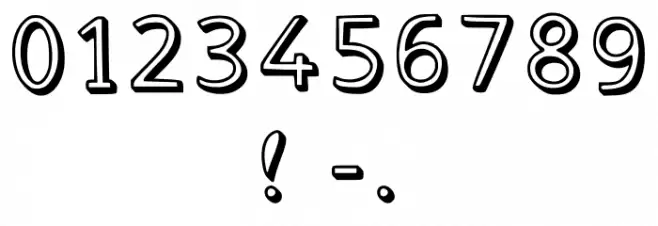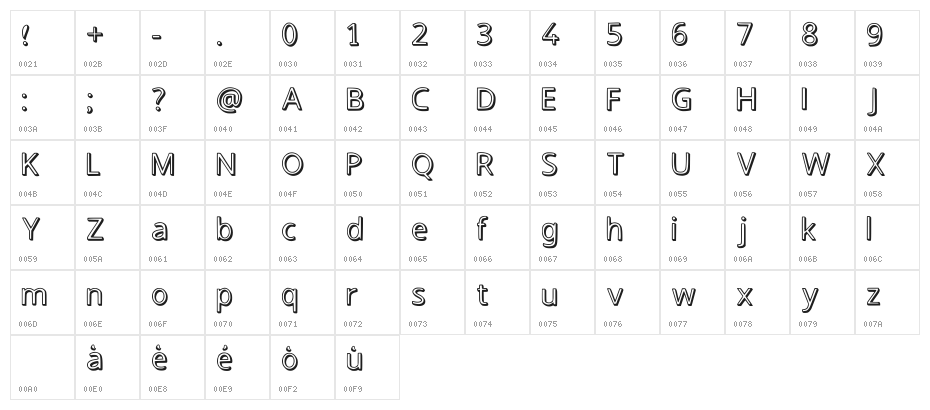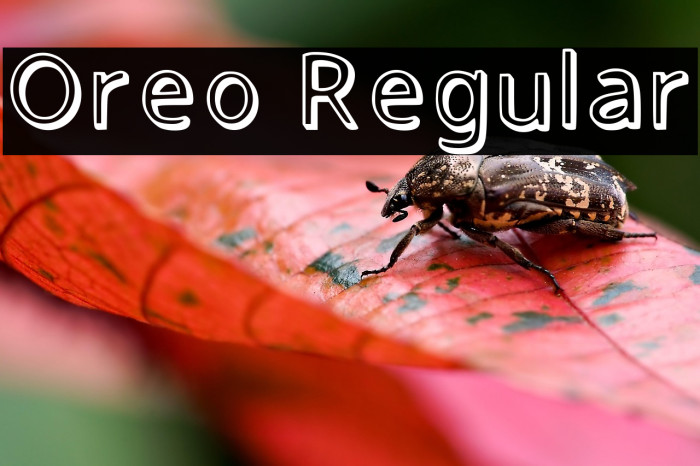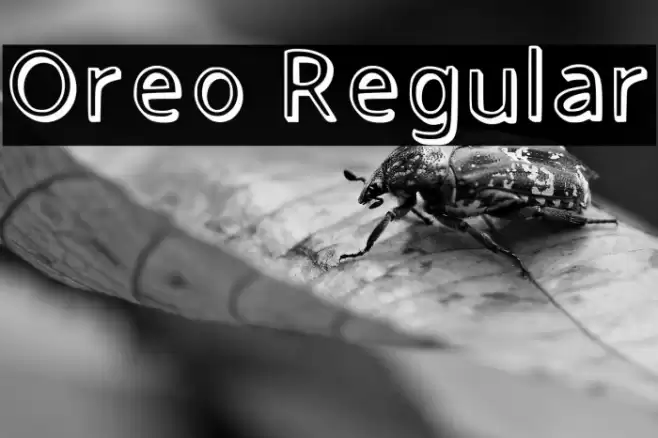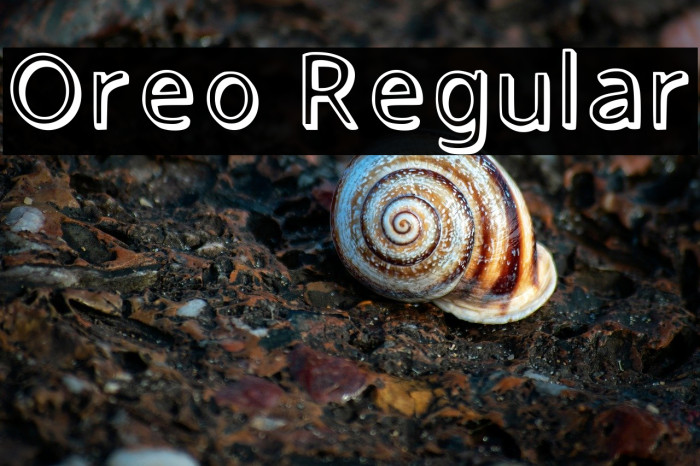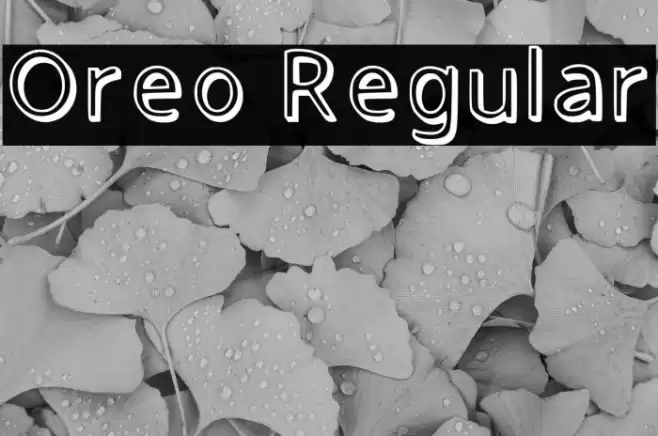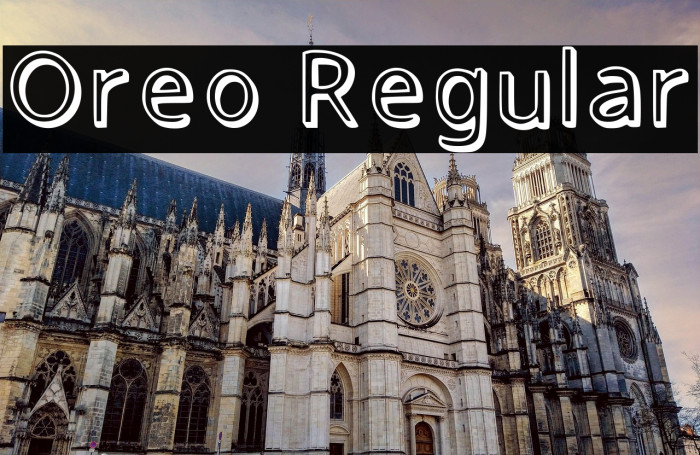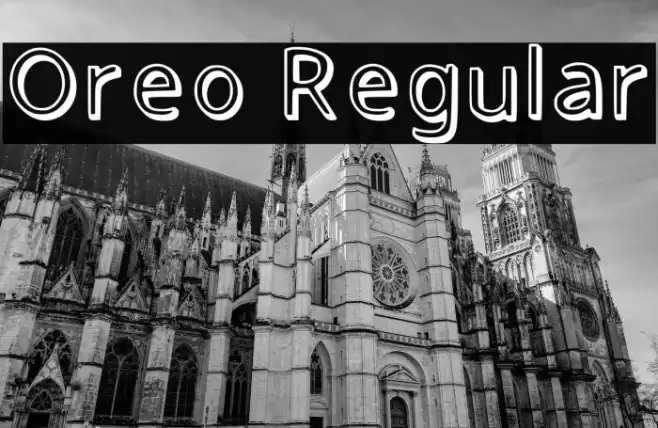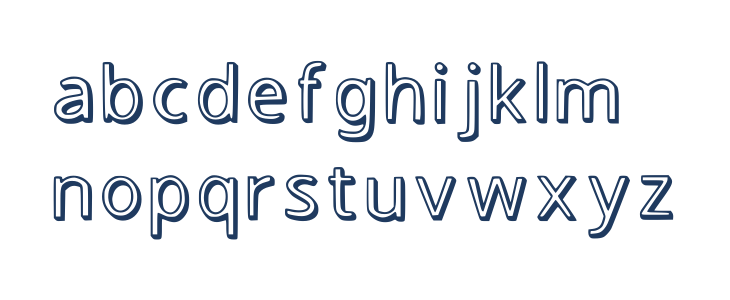
Oreo Regular Font
Oreo Regular Description
This font features a playful and rounded style with a bold outline that gives each character a distinct presence. The uppercase and lowercase letters maintain a consistent width, creating a harmonious look. The numbers are equally well-designed, matching the letterforms in style and weight. Special characters like the exclamation mark and period are crafted to complement the overall aesthetic. The font's design is approachable and friendly, making it suitable for a variety of creative projects.